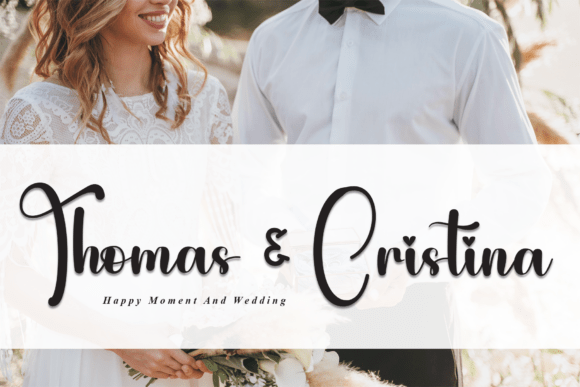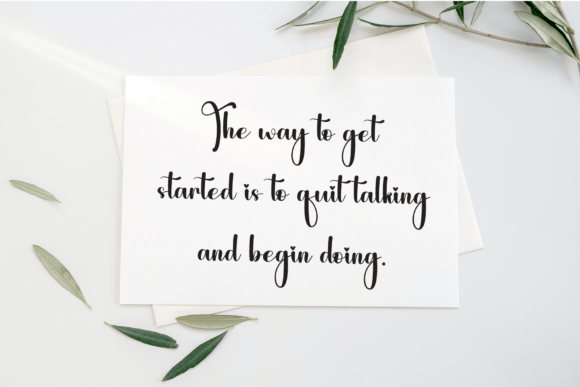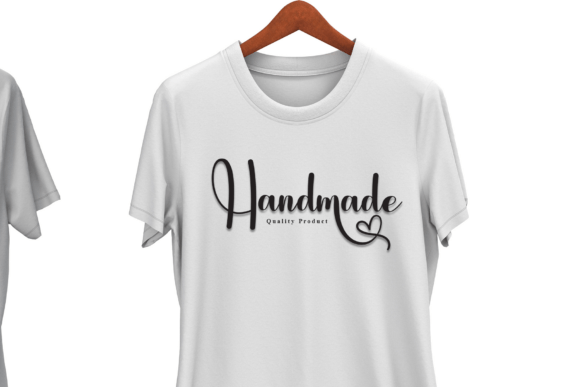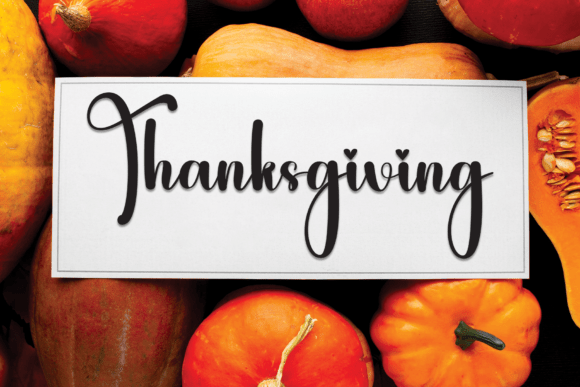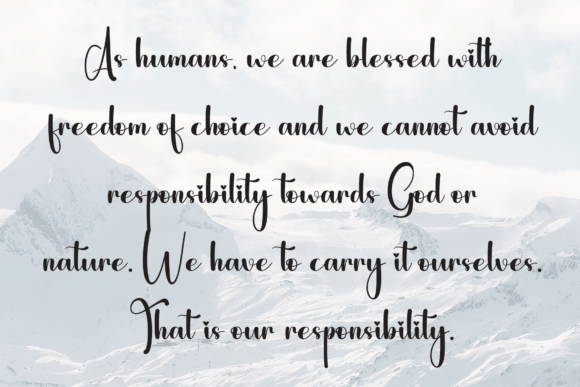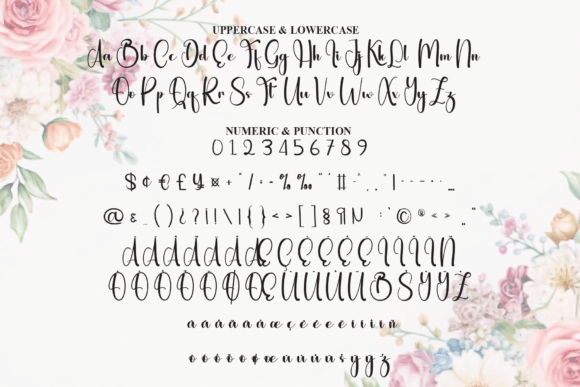
Unleash the Charm of Handwritten Font
Have you ever sat down with a blank sheet of paper, a pen, and a blank stare, trying to put into words the perfect wedding invitation or a heartfelt birthday message? The struggle is real, but what if you could capture the essence of your thoughts and emotions in a single, elegant font?
Enter the Handwritten Font – a delightful, display font that embodies the spirit of handwritten notes and personal messages. This charming font is designed to add a touch of warmth and friendliness to any design project, making it perfect for wedding invitations, greeting cards, and more.
As a designer, you’ll love the Handwritten Font for its versatility and ability to add a personal touch to your designs. Its playful allure makes it a valuable addition to any creative project, and its ease of use makes it a joy to work with.
Key Features of Handwritten Font
- Unique Characteristics: Handwritten Font features a natural, cursive script with subtle variations in letterforms, giving it a personal and elegant touch.
Handwritten Font Review
When I first laid eyes on the Handwritten Font, I couldn’t help but be charmed by its whimsical and playful feel ✨. The subtle imperfections and irregularities give it a unique, handwritten look that’s perfect for adding a touch of personality to designs.
- The font’s flexibility is a major plus – it can be used for a wide range of applications, from marketing materials to wedding invitations.
- It’s a great choice for designers looking to add a touch of elegance and sophistication to their work.
- The font’s high-quality glyphs ensure that it looks great at various font sizes.
However, I do have a few concerns ⚠️. The font’s irregularities can sometimes make it difficult to read, especially at smaller font sizes. Additionally, the font’s design may not be ideal for formal or professional applications, as it can come across as a bit too casual.
Overall, I think the Handwritten Font is a great choice for designers who want to add a touch of personality to their work. While it may have some limitations, its unique look and flexibility make it a valuable addition to any designer’s toolkit.